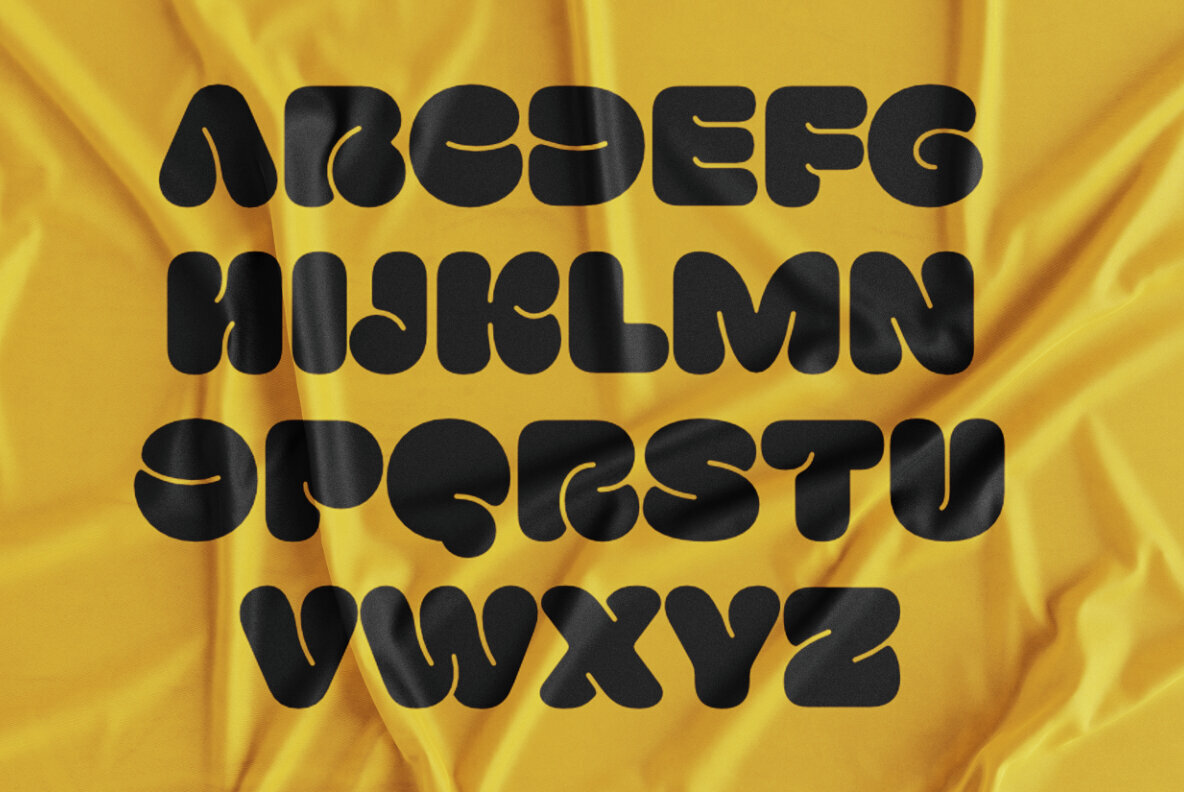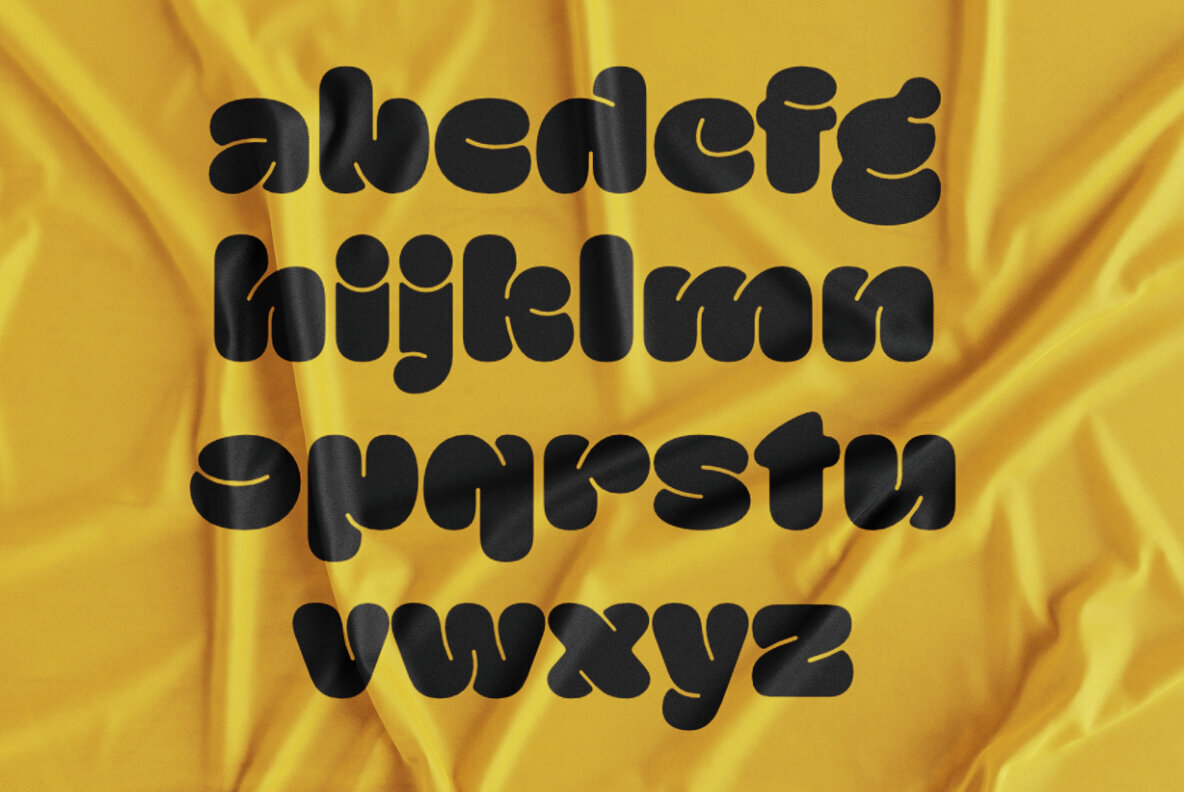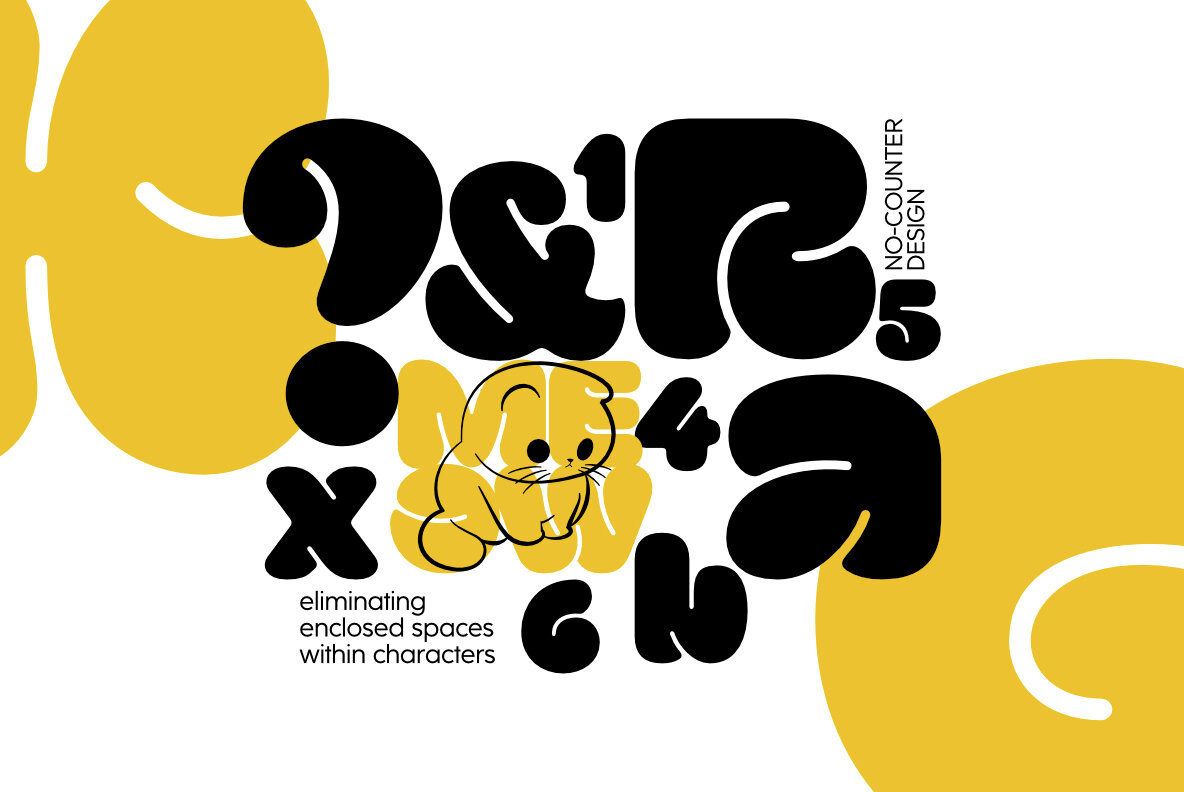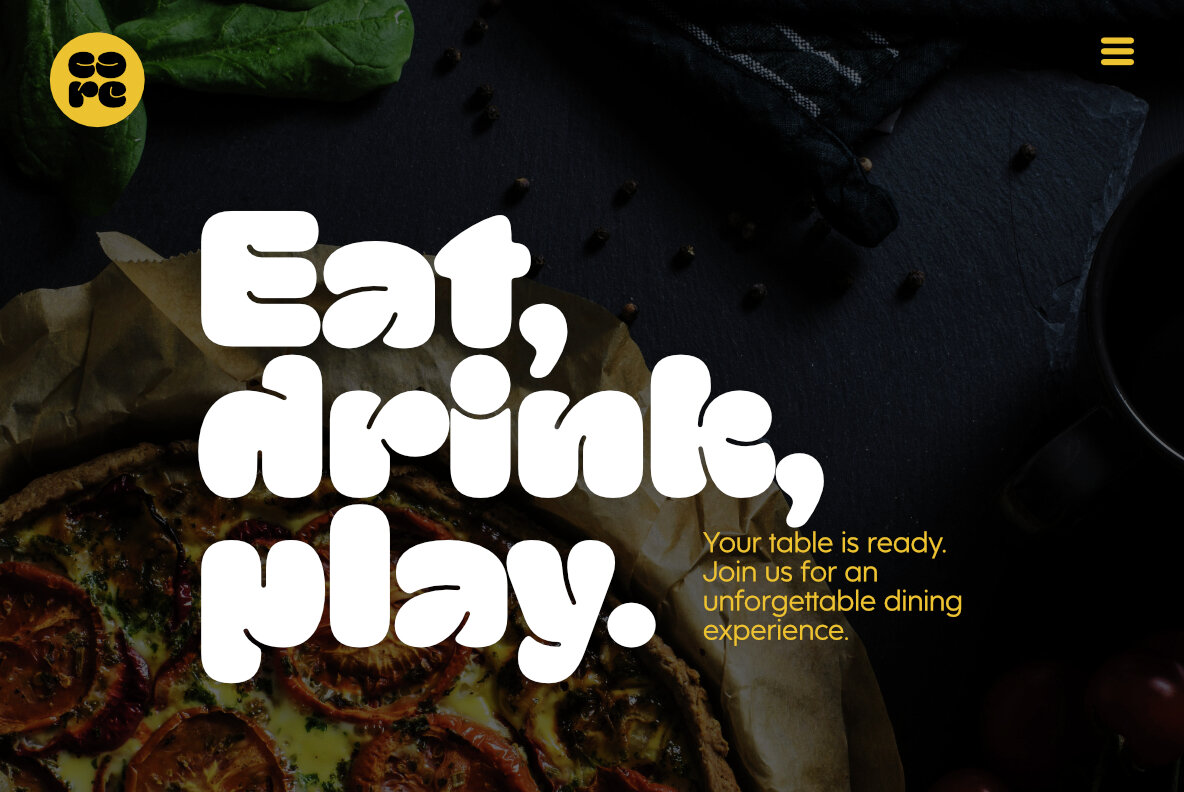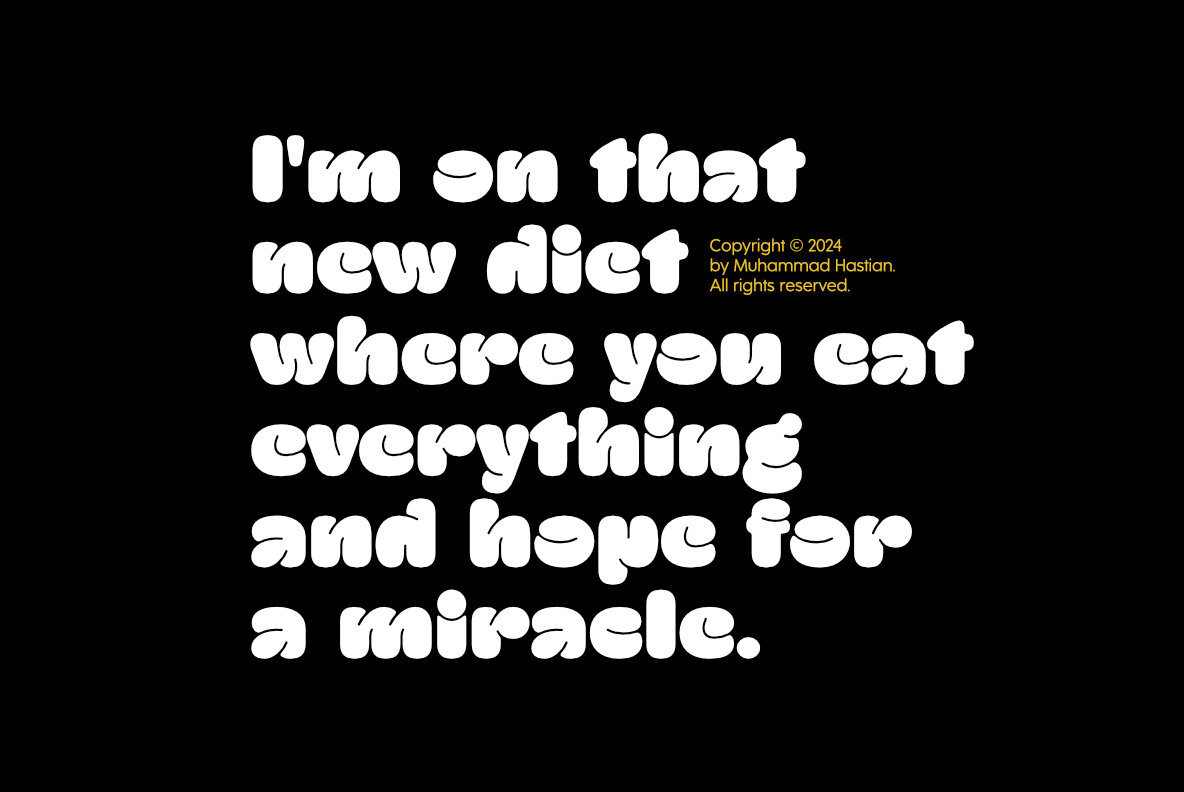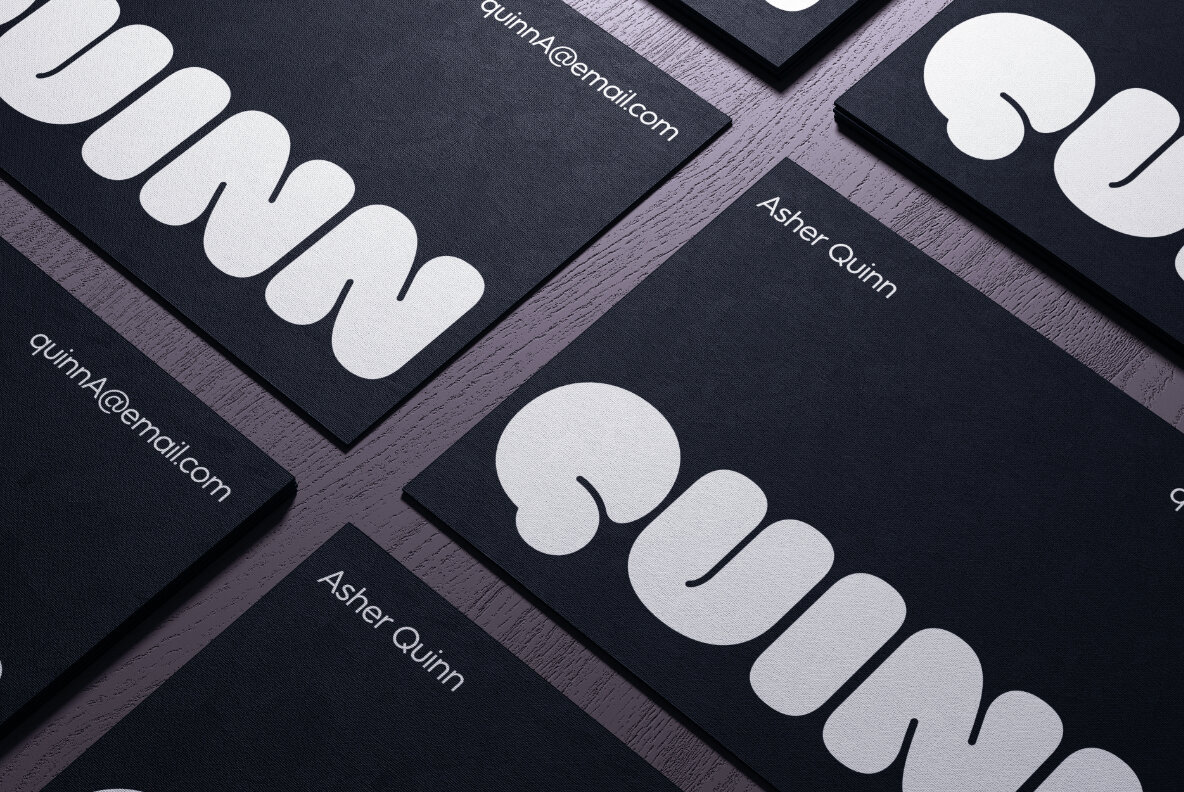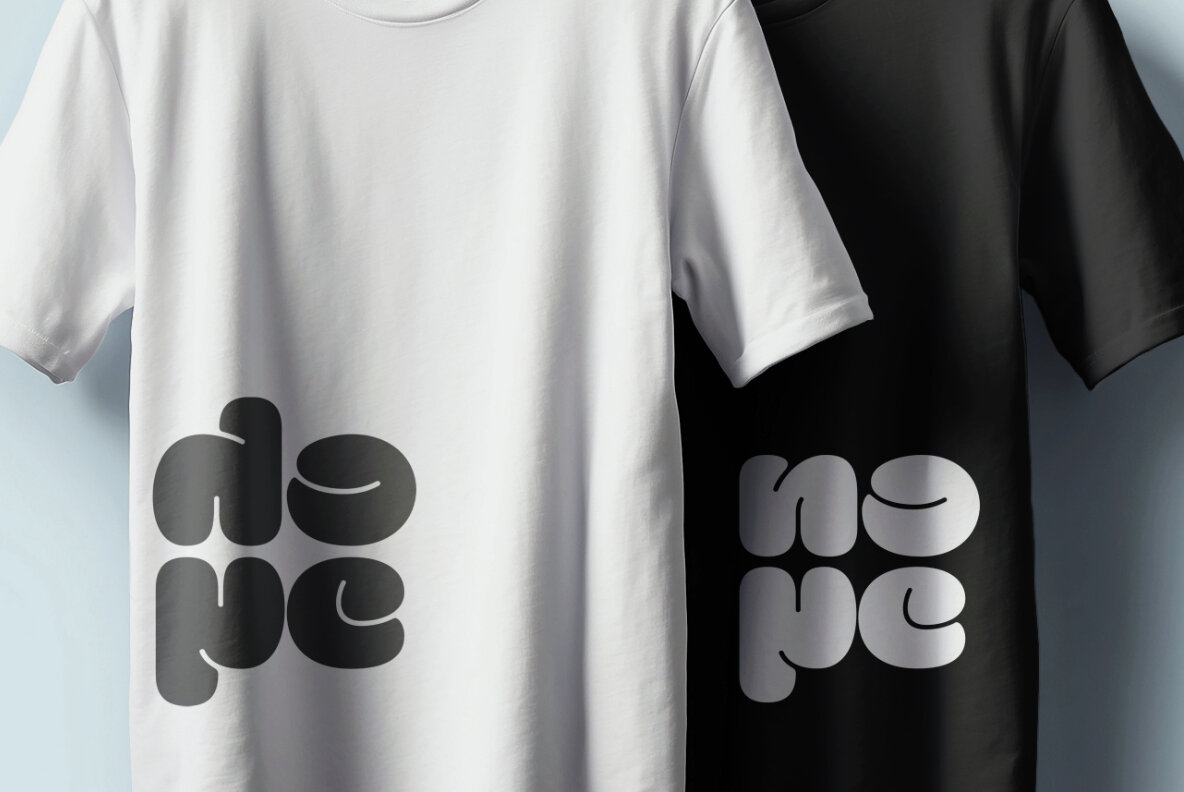
Drage Font
Drage Regular
Drage is a playful and bold typeface characterized by its fat, rounded, and chubby letterforms. The absence of counters gives this font a solid, smooth appearance, making it visually striking and full-bodied. Its thick strokes and cohesive design create a sense of fullness and approachability, perfect for fun and casual projects.
Ideal for logos, headlines, and any design requiring a friendly, chunky aesthetic, Drage demands attention with its unique, inviting look. This typeface is particularly well-suited for designs that aim to convey a warm, engaging atmosphere.